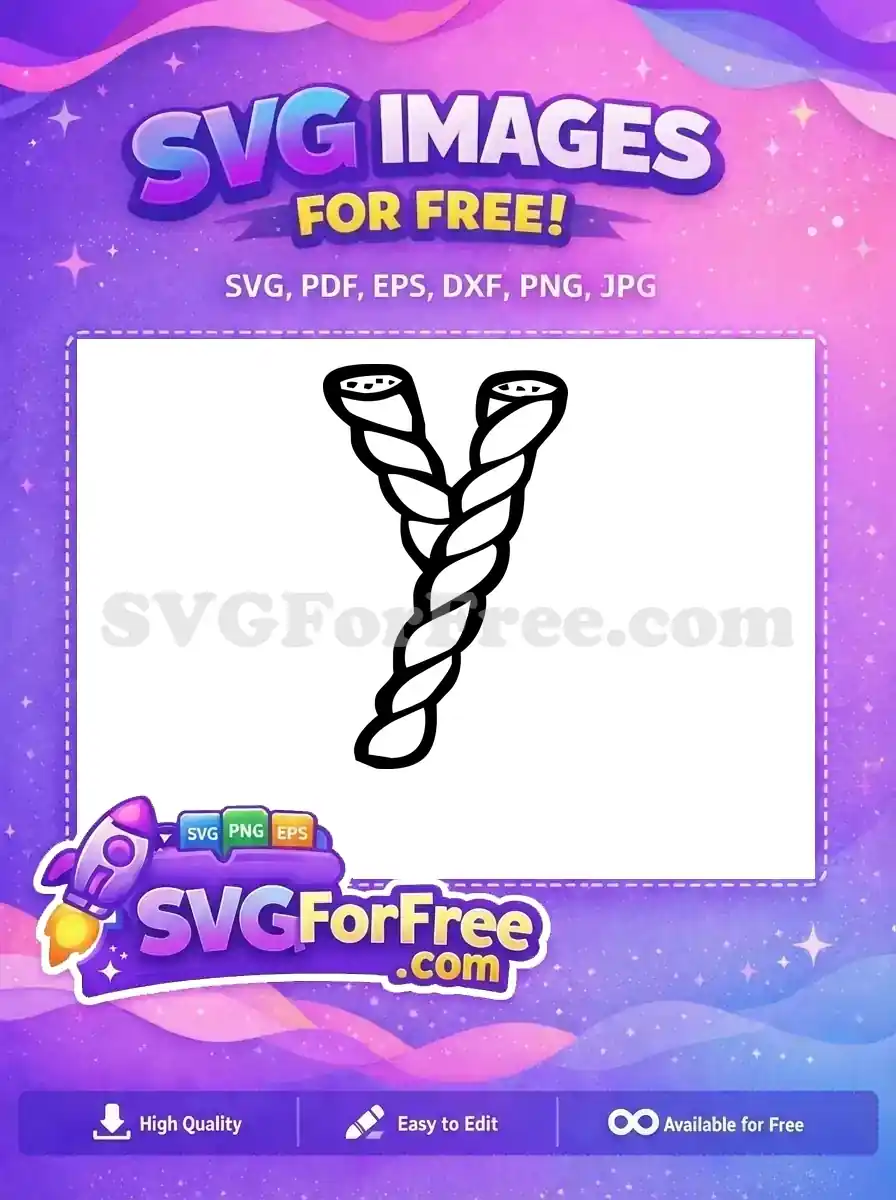
Free Braided Font Letter Free Y Initial Fonts Free SVG – Instant Download
This vector of the letter Y is designed to look like three pieces of coiled rope, a free graphic.
Free Braided Font Letter Free Y Initial Fonts Free SVG